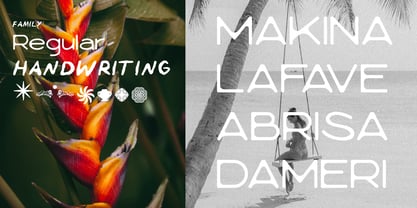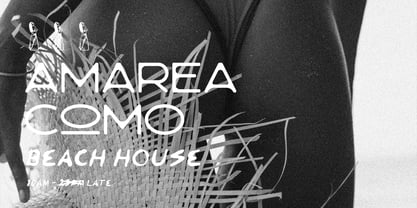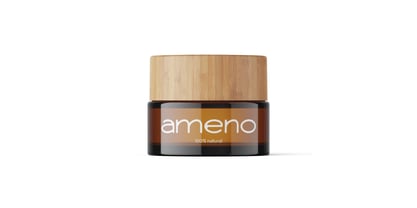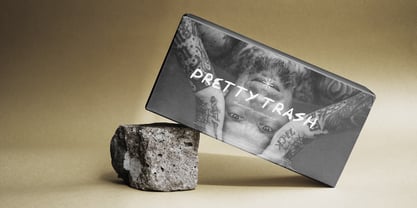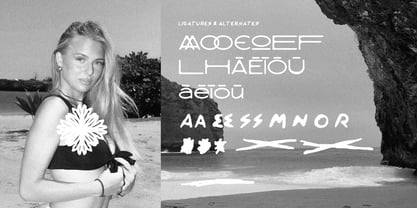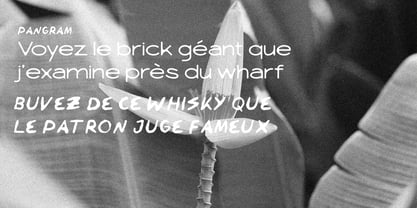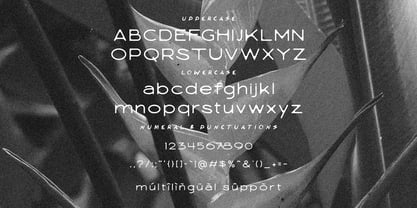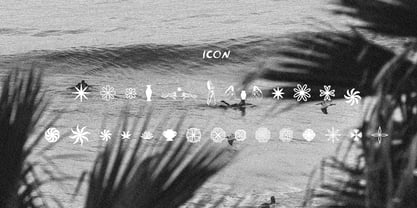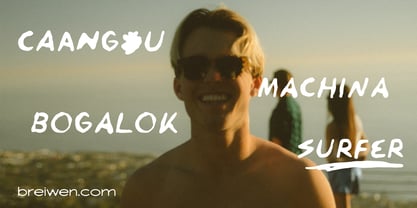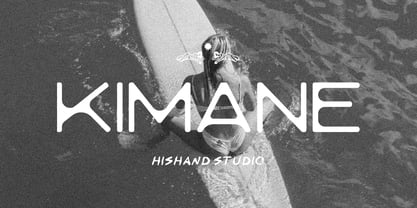
Kimane
by Hishand Studio
The Kimane Font Family was designed by Putu Dody Permana and published by Hishand Studio. Kimane contains 3 styles and family package options. More about this family
Kimane is a simple font duo that balances a modern sans-serif with a tropical handwritten style. The sans-serif is defined by its thin, clean lines and smooth, curved edges, giving it a soft and approachable look. By avoiding sharp corners, the typeface feels calm and friendly, making it a great choice for minimalist headlines that need to stay light and airy. Its slender proportions keep the design feeling open and uncluttered, which works well for layouts that value plenty of white space and a neat aesthetic. The duo is completed by a handwritten script that brings a relaxed, organic feel to the pairing. This font captures the look of natural handwriting, as if jotted down quickly in a seaside sketchbook. It adds a human touch, breaking up the steady, curved shapes of the sans-serif with its loose and simple motion. Together, the Kimane Duo creates a clean, sun-kissed harmony—blending a neat, thin typeface with a breezy, tropical handwritten font. It is an ideal choice for social media graphics, lifestyle packaging, or any project that needs a calm, aesthetic feel. Complete with - ligatures - alternates - regular - hand-writing - icon - kerning - multilingual support